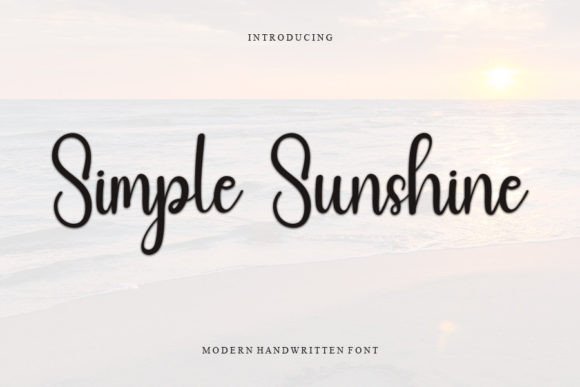
Introducing the "Simple Sunshine Font" - A Handcrafted Masterpiece for Designers and Creative Visionaries
In the realm of digital artistry, fonts hold the power to transform ordinary words into captivating expressions, igniting emotions, and leaving lasting impressions. Step into the world of "Simple Sunshine Font," a carefully crafted script typeface that embodies elegance, charm, and a touch of modern flair. Created by the renowned NYA Letter, this masterpiece promises to elevate your designs beyond the realm of the ordinary.
"Simple Sunshine Font" is the epitome of versatility, seamlessly adapting to a myriad of creative endeavors - from enchanting logos that speak volumes about your brand's identity to captivating social media posts that demand attention in the endless digital stream. Its effortlessly flowing lines and balanced structure make it an ideal choice for branding, packaging, and website design, adding a touch of sophistication and uniqueness to your projects.
Let your imagination soar as you explore the endless possibilities that "Simple Sunshine Font" presents. Picture your designs adorned with graceful curves and stylish letterforms, exuding a sense of timeless elegance. Your logos will command respect, your social media posts will captivate audiences, and your branding will radiate with an allure that sets you apart from the ordinary.
Join the creative revolution and embrace the power of "Simple Sunshine Font." Discover how its timeless appeal and modern touch can transform your designs into works of art. Let your creativity shine, let your message resonate, and let "Simple Sunshine Font" guide you on your journey to design excellence.